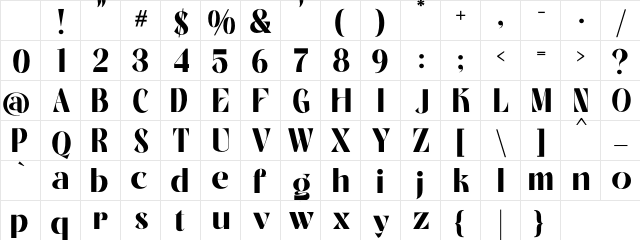
Complete Naroline - Demo Font Regular glyph index. Displaying only characters natively supported by Naroline - Demo Font Regular font.
Naroline - Demo Font Regular is a composed and adaptable typeface that performs quietly and consistently across a wide range of design contexts.